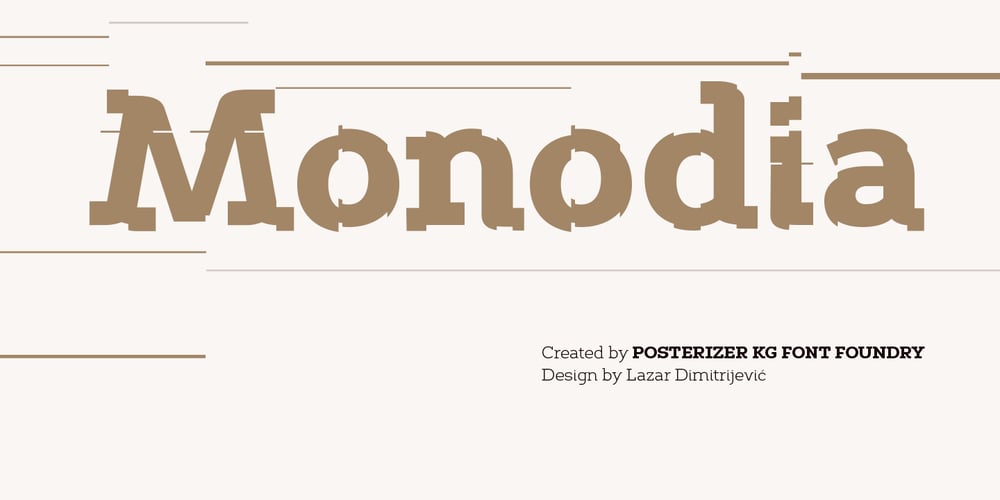
Monodia Font Family was designed by Lazar Dimitrijević and published by Posterizer KG. Monodia contains 3 styles and family package options. In few words, Monodia is a small but widely applicable slab serif (nearly monoweight) font family with only two weight and one cut effect version. To those who agree with the fact that less is actually more, three fonts should be sufficient for branding, headlines and other display uses. With that reason regular and bold weights are designed with huge contrast. In order to avoid clogging of certain (especially Cyrillic) letters in the text, some serifs are atypically modified or allowed. Unlike uppercase letters and numbers, lowercase letters don’t have forked serifs. Еnjoy!